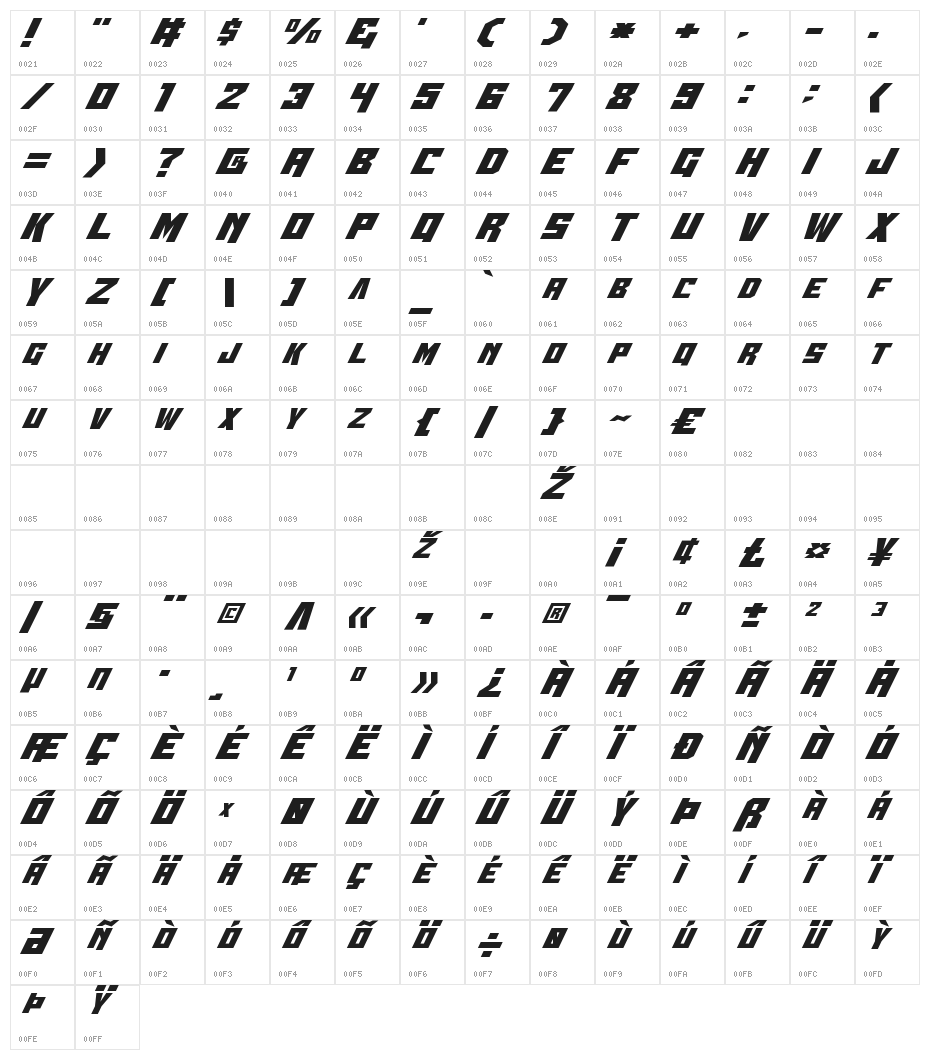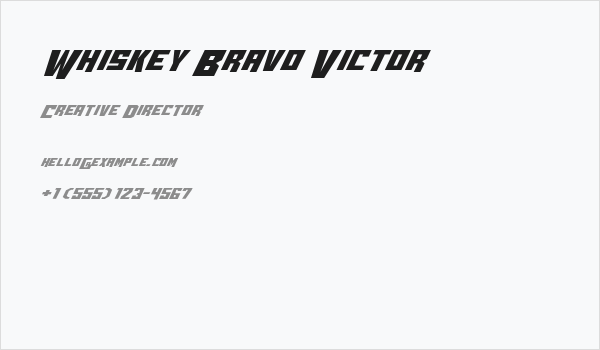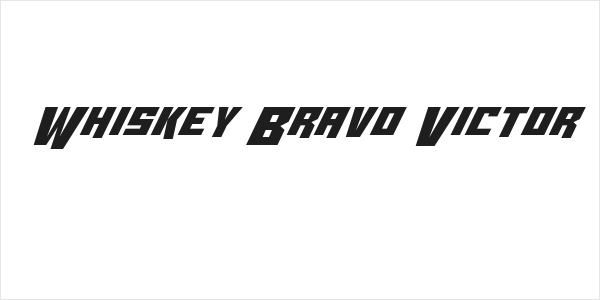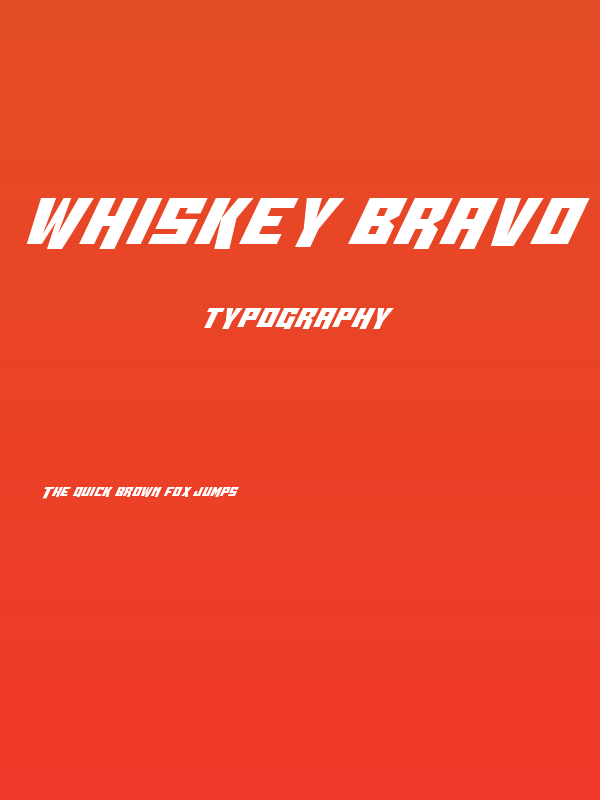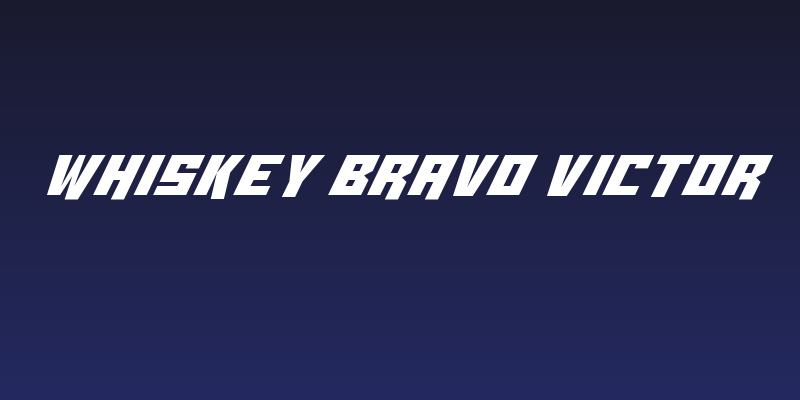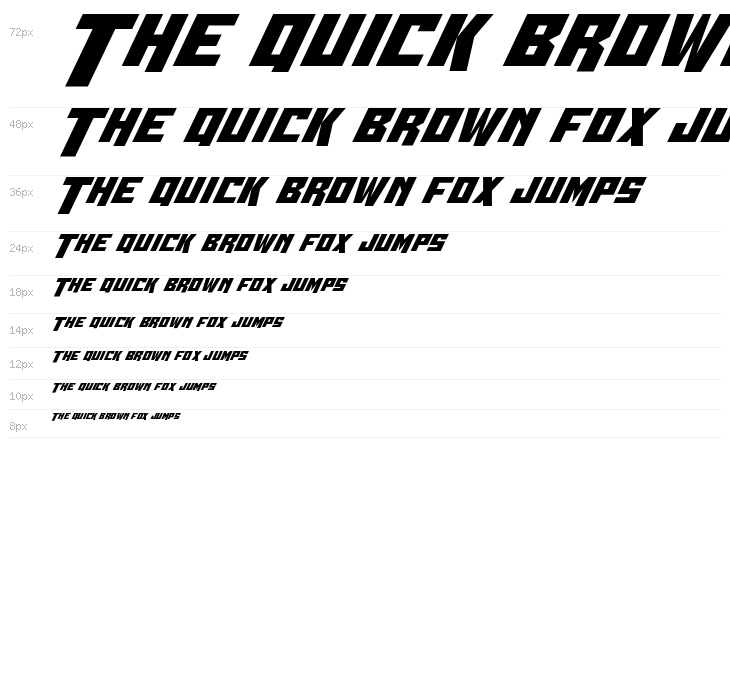
Whiskey Bravo Victor Font
Whiskey Bravo Victor Description
This font features a bold, angular design with a strong geometric influence, characterized by its sharp edges and slanted orientation. The uppercase letters are particularly striking, with a dynamic and aggressive appearance that suggests movement and speed. The numbers and special characters maintain this bold style, ensuring consistency across all glyphs. The font's unique style makes it ideal for projects that require a modern and edgy aesthetic, such as sports branding, automotive designs, or video game titles.
| Proposed Projects | Ideal for sports branding, automotive designs, video game titles, and dynamic posters. |